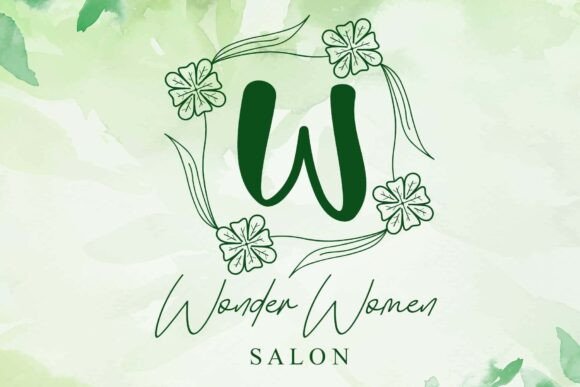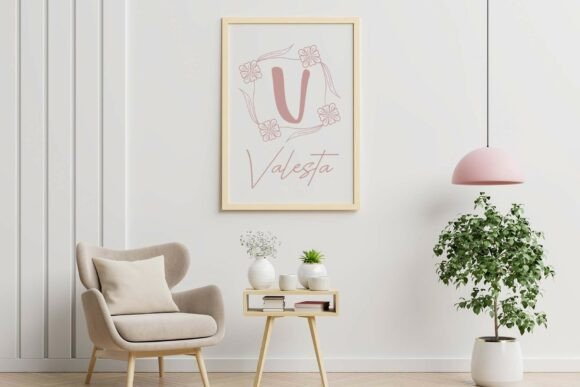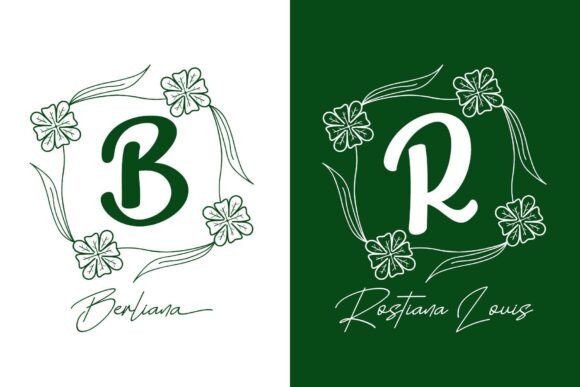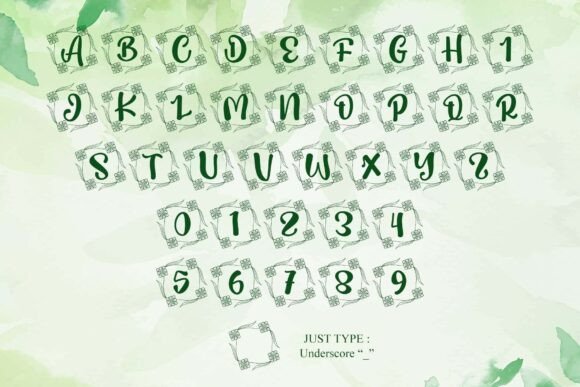
Introduction to Sherlitarosemonogram Font
Sherlita Rose Monogram is an elegant and decorative font designed to bring a refined touch to your creative projects.
Each character is framed with a delicate floral motif, making it perfect for adding a sophisticated and artistic look to your designs This monogram font is ideal for wedding invitations, greeting cards, branding, logos, packaging, stationery, and personalized gifts.
Key Features of Sherlitarosemonogram Font